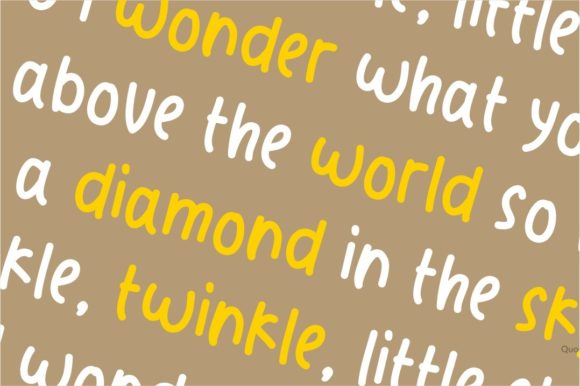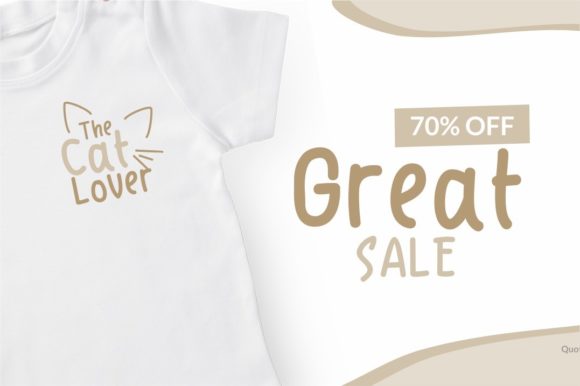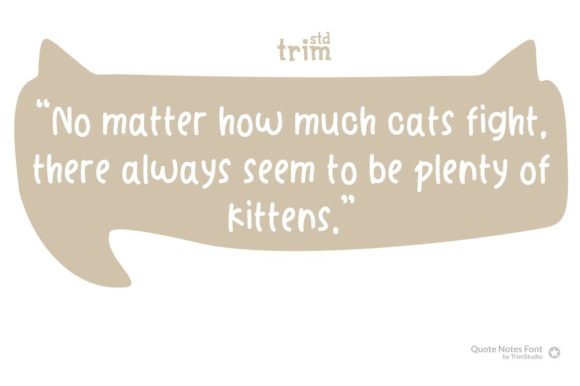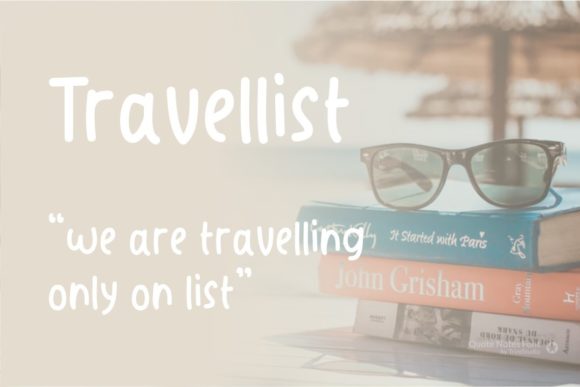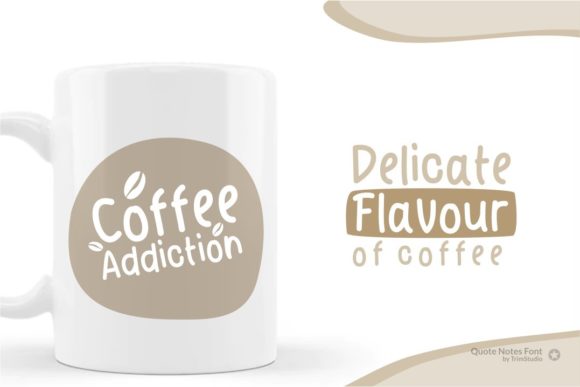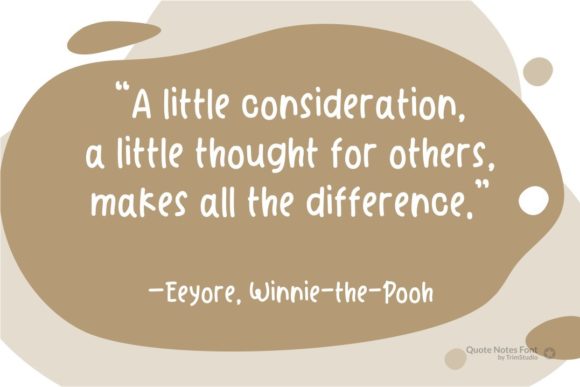
Introduction to Quote Notes Font Font
Fonts play a crucial role in design, and the Quote Notes Font font is a typeface that brings both character and versatility to any project. Whether you’re working on a branding project, a website, or a print design, the Quote Notes Font font offers a unique style that can elevate your work.
Quote Notes is a cute and whimsical handwritten font with a fun style to let you explore more about craft and cuteness, especially in a precious moment like a holiday, baby shower, birthday, Christmas, Easter, etc.
Itβs perfectly suited for crafters and graphic artists to complete their invitation design, advertisement, poster, logo, birthday card, product sign, and more .
Key Features of Quote Notes Font Font
Why Choose Quote Notes Font Font?
The Quote Notes Font font is more than just a typeface β it’s a design tool that helps you communicate your message with style and clarity. Its unique character set and versatile design make it suitable for a wide range of applications, from elegant invitations to bold headlines.
With its carefully crafted letterforms and balanced proportions, the Quote Notes Font font ensures readability and visual appeal across all mediums.
What makes Quote Notes Font font special?
The Quote Notes Font font stands out with its unique design, exceptional readability, and versatility across various design applications.